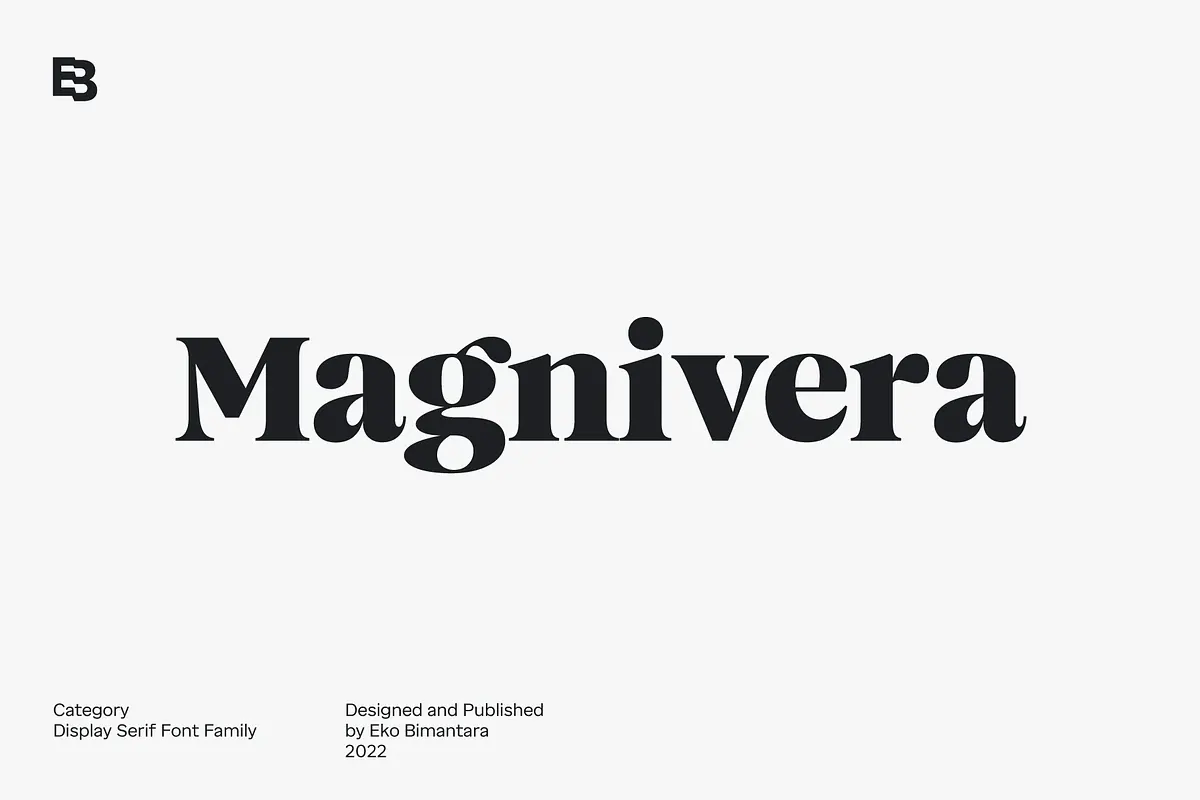
Magnivera; Display Serif Font Family Free Download
The Magnivera; Display Serif Font Family Free Download is a sophisticated and versatile font family designed to bring a classic, timeless elegance to your designs. With its bold and refined letterforms, this typeface is perfect for creating striking logos, posters, headlines, and high-end branding materials. The Magnivera font family offers a variety of weights and styles, ensuring flexibility across multiple design projects, whether in print or digital media. Its clean lines and well-crafted serifs make it ideal for both creative and professional uses, adding a refined touch to any project. Please note, for commercial use, a license purchase is required. However, you can easily download the Magnivera; Display Serif Font Family Free Download for free for personal use and explore its full potential. Download the Magnivera; Display Serif Font Family Free Download today and elevate your designs with this elegant serif font family.